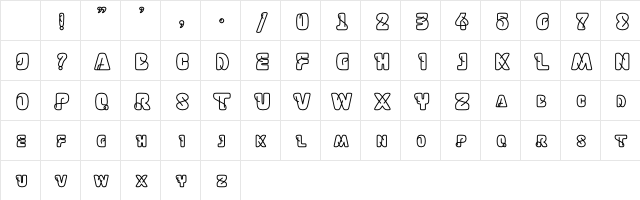
Complete Talisyaline Demo Bold glyph index. Displaying only characters natively supported by Talisyaline Demo Bold font.
Talisyaline Demo is a composed and adaptable typeface that performs quietly and consistently across a wide range of design contexts. Its bold stroke weight gives it real presence on the page.